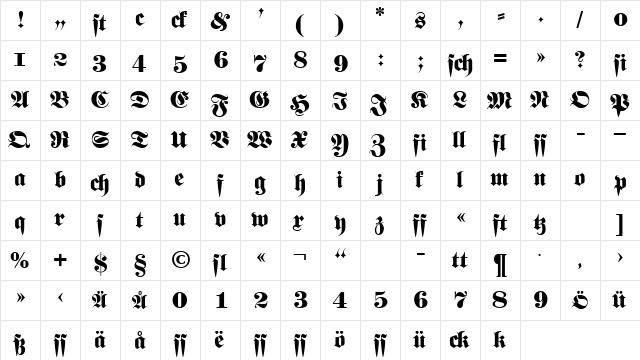
DSNormalFraktur Bold
Design Context for DSNormalFraktur Typeface
DSNormalFraktur draws on the rich tradition of blackletter calligraphy, with dense, angular strokes that evoke medieval manuscripts and old-world craftsmanship. Its bold stroke weight gives it real presence on the page.
Well-suited to band logos, craft beer branding, tattoo lettering, and heritage-themed identities.
Font Pairing: Pair with a clean neutral sans-serif for body copy to let DSNormalFraktur's character lead without overwhelming the composition.
Pro Tip: Use DSNormalFraktur sparingly at large sizes. Even a single word set in blackletter can define the visual register of an entire design.